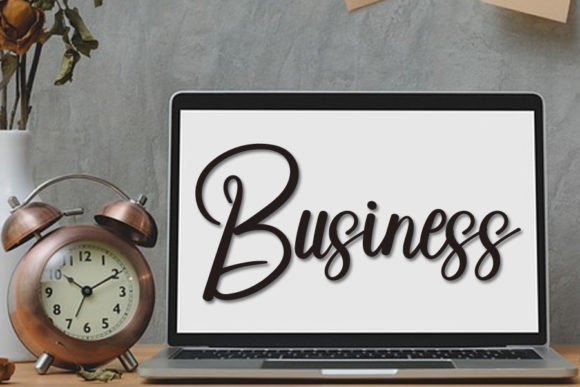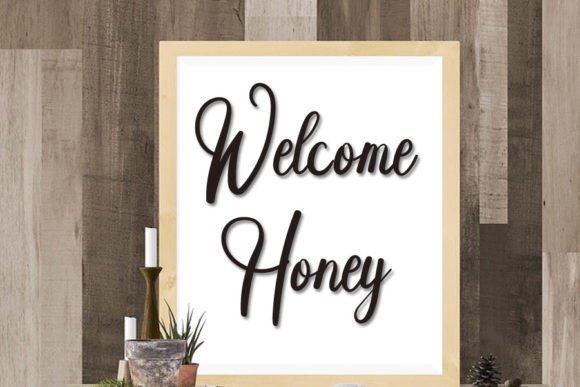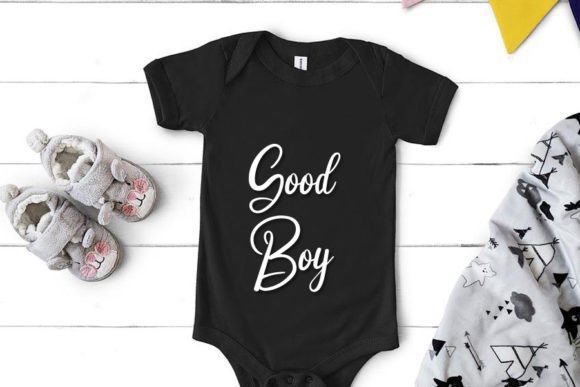
Introduction to Objectives Font
Have you ever stared at a blank canvas, struggling to bring your creative vision to life? You’ve got an idea, but the words just won’t flow. That’s where the right design resource can make all the difference. Enter the Objectives Font, a modern and stylish handwritten script font that’s about to become your new favorite.
As a designer, you’re always on the lookout for high-quality fonts that can elevate your creative project and make it truly stand out. With its transparent background and unique, handcrafted feel, the Objectives Font is the perfect addition to your design toolkit. Whether you’re working on a personal or professional project, this font is sure to bring your ideas to the next level.
Key Features of Objectives Font
- High-quality design resource with a transparent background, ideal for creative projects
- Supports a wide range of languages, making it a versatile design resource for global projects
- Includes a variety of font styles and weights, allowing for flexible design options
- Perfect for use as a design resource in creative projects, from logos and branding to digital displays and signage
Honest Review: Objectives Font
As a designer, I’m always on the lookout for high-quality fonts that can elevate my creative projects. The Objectives Font caught my attention with its sleek, modern design, and I decided to give it a try.
- ✨ Clean lines and minimalist aesthetic that makes it perfect for modern designs
- ✨ Highly legible, even at small font sizes
- ✨ Supports a wide range of languages, making it a great option for international projects
- ⚠️ The font lacks bold and italic styles, which might be a drawback for designers who rely on these features
- ⚠️ The transparent background option can be a bit tricky to work with, especially when combining it with other design elements
The Objectives Font is a versatile design resource that can be used in a variety of creative projects, including business presentations, marketing materials, and website designs. It’s also a great option for those looking for a high-quality font with a transparent background.
Can I customize Objectives Font to fit my specific design needs?
While Objectives Font is a high-quality design resource, it’s not designed to be heavily customized. However, you can experiment with adjusting font sizes, colors, and styles to fit your project’s requirements. Keep in mind that significant modifications might affect the font’s overall appearance and legibility.